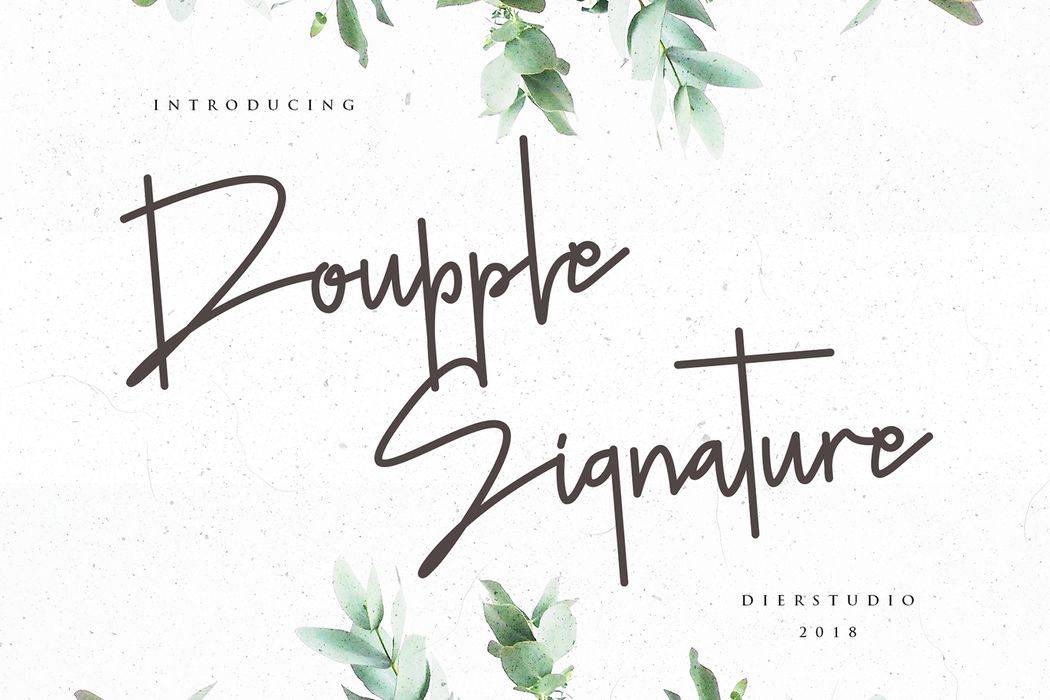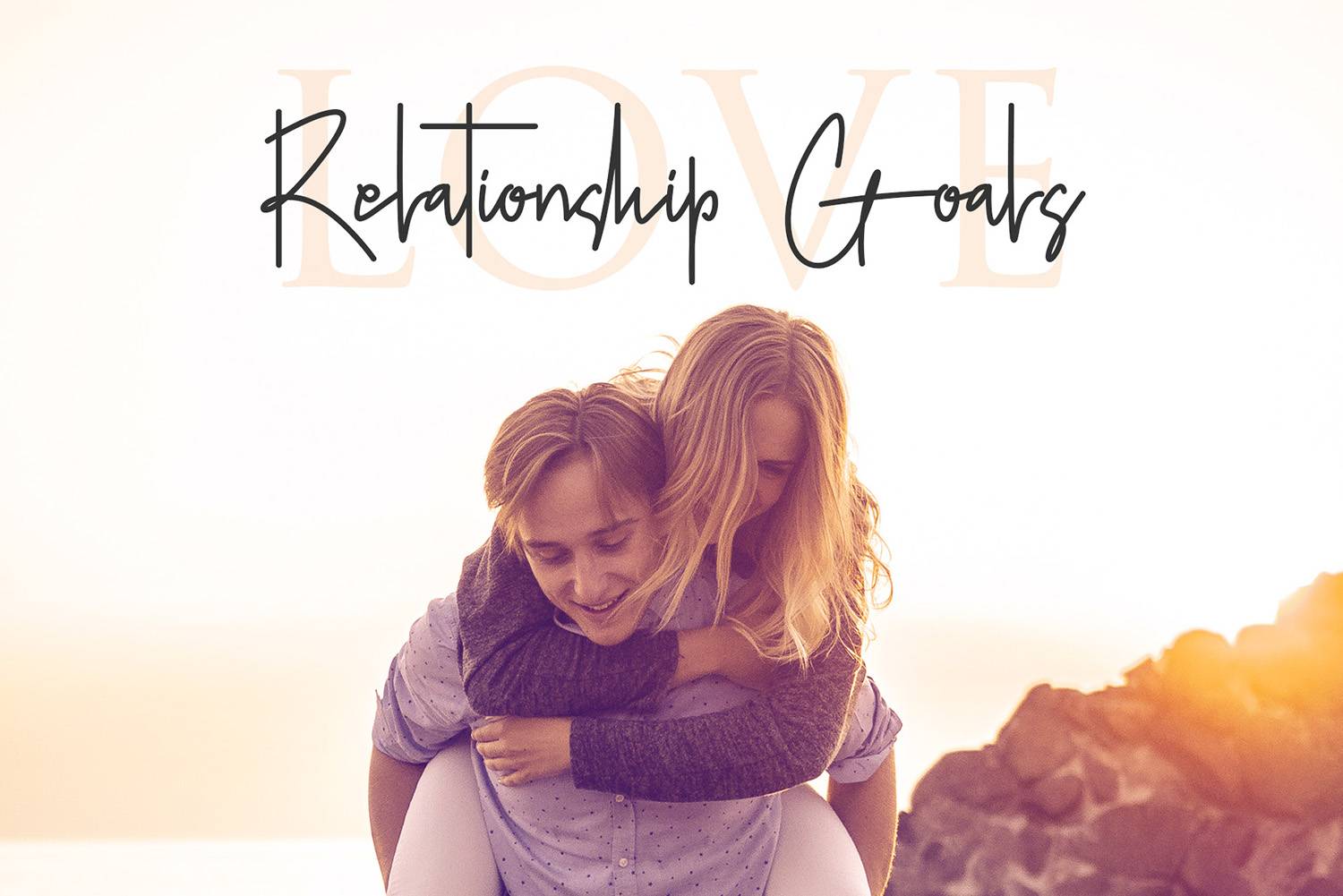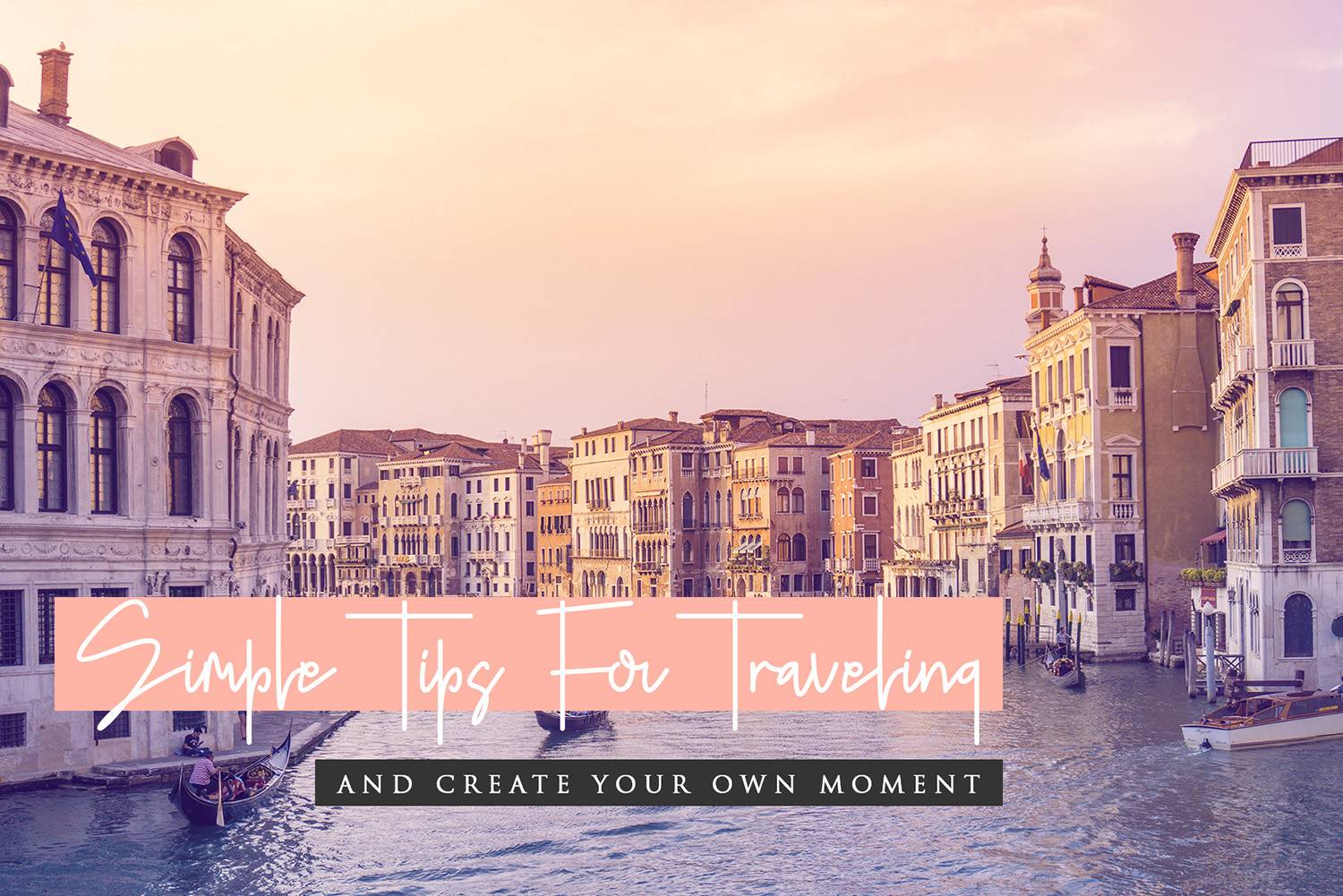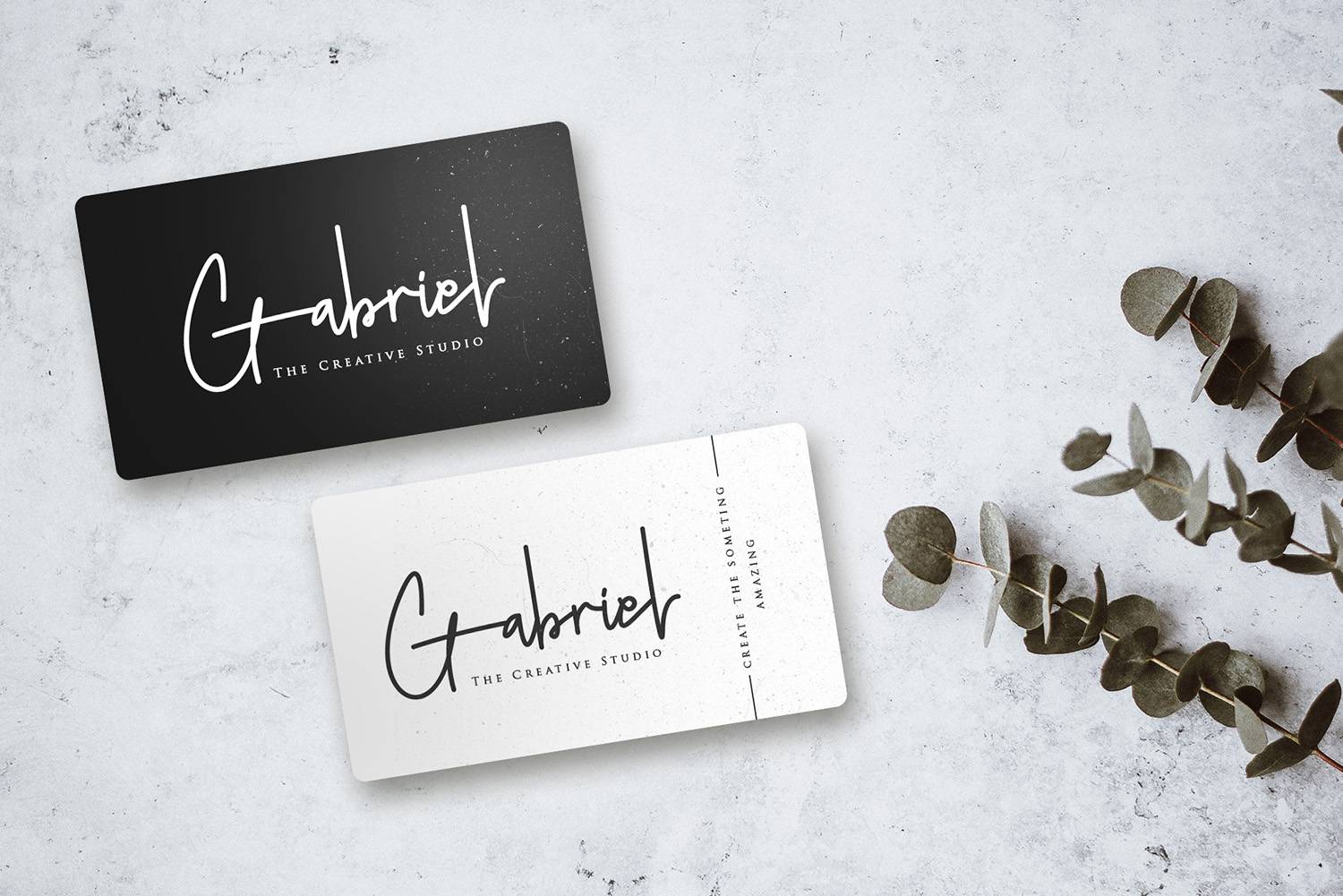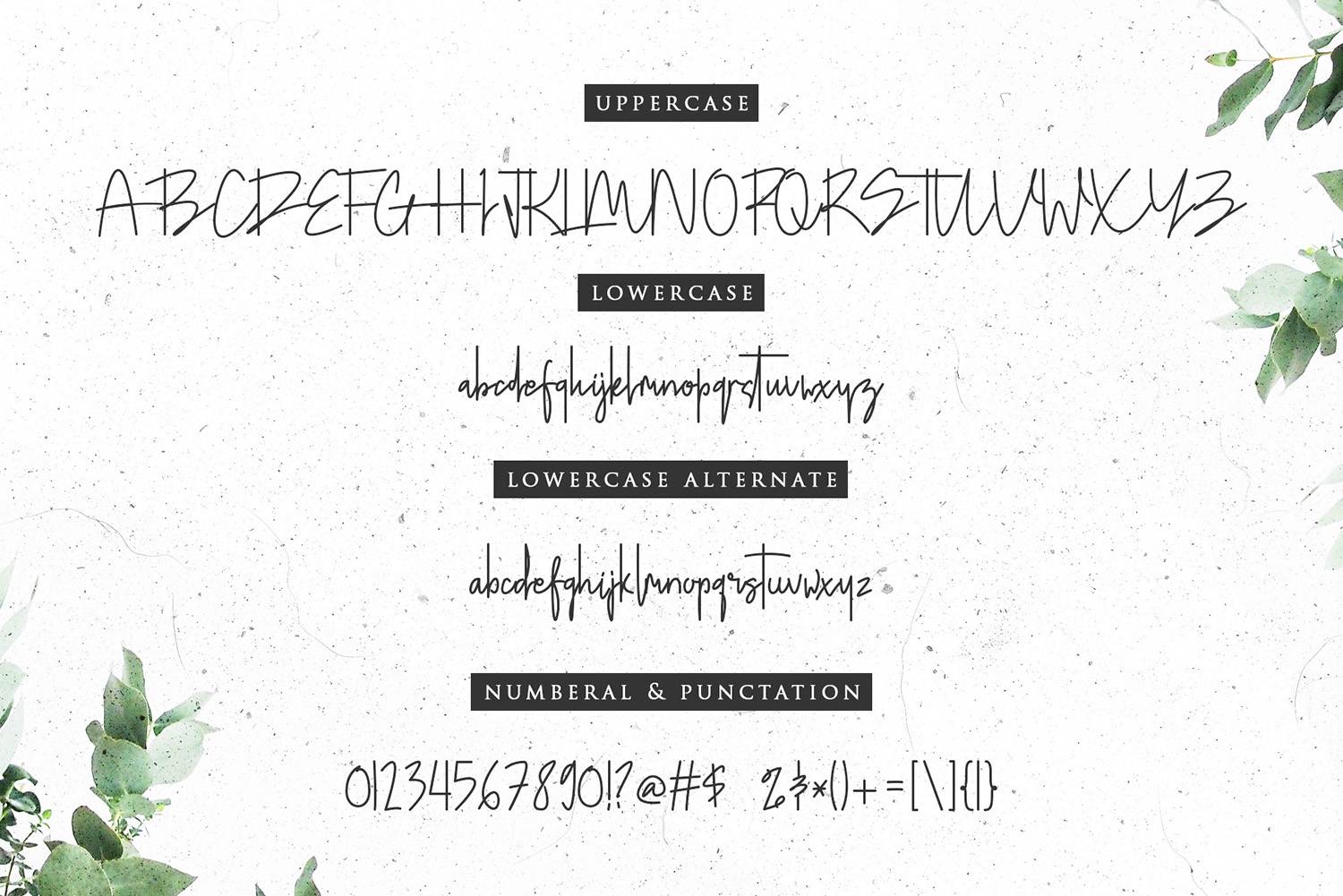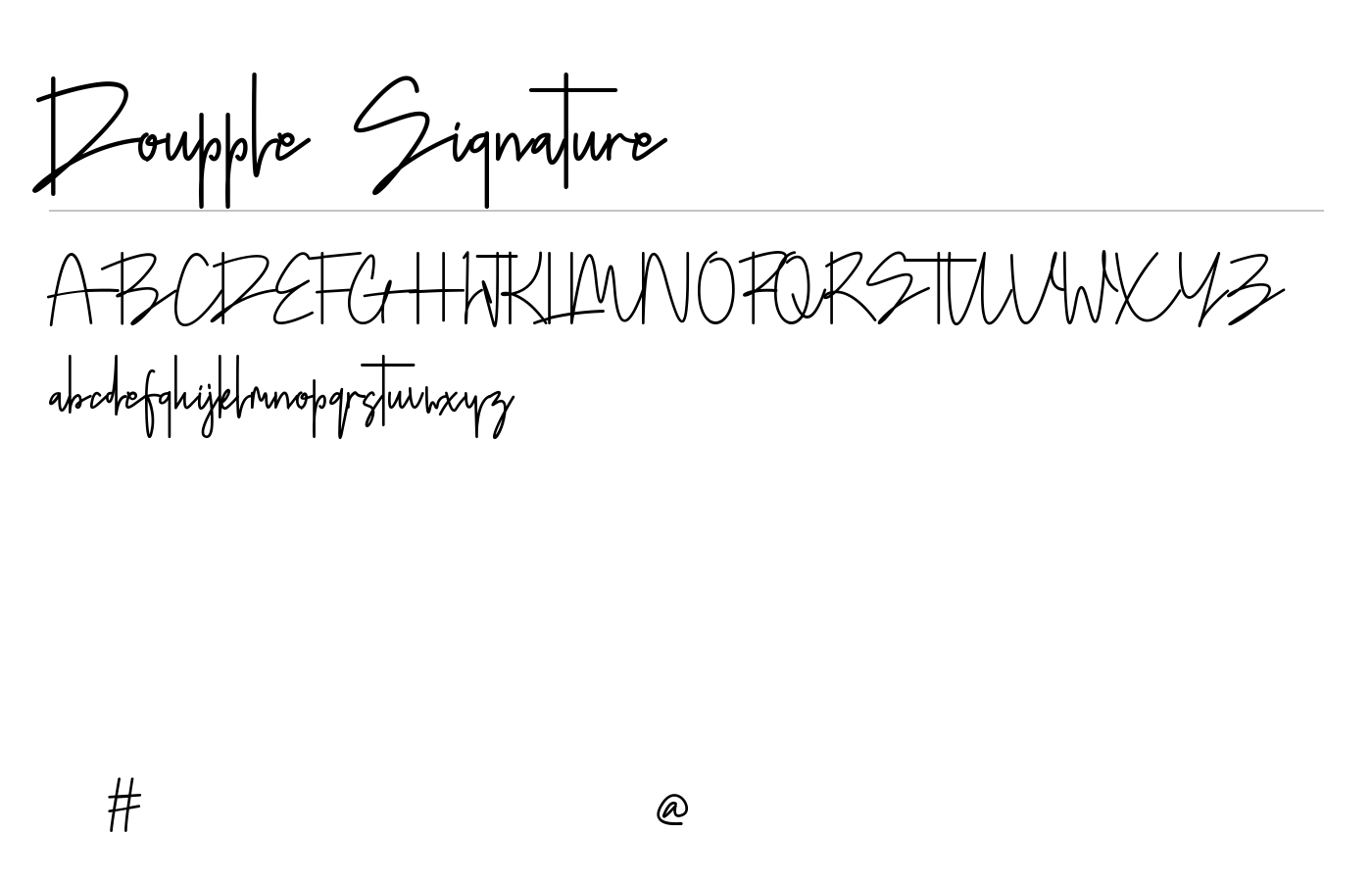
Doupple Signature is a slender, casual handwritten font that mimics natural pen strokes with its tall, narrow letterforms and slightly irregular lines, giving it a personal and authentic feel. Its light weight and airy spacing make it perfect for creative branding, invitations, and modern editorial use where a stylish yet approachable signature vibe is desired. This font excels in adding a touch of individuality and elegance without feeling overly formal or rigid.
Doupple Signature Font
About Doupple Signature Font
| Font family | Doupple Signature Font |
| Release date | 2018-07-31 |
| Designer | Ahmad Khaidir |